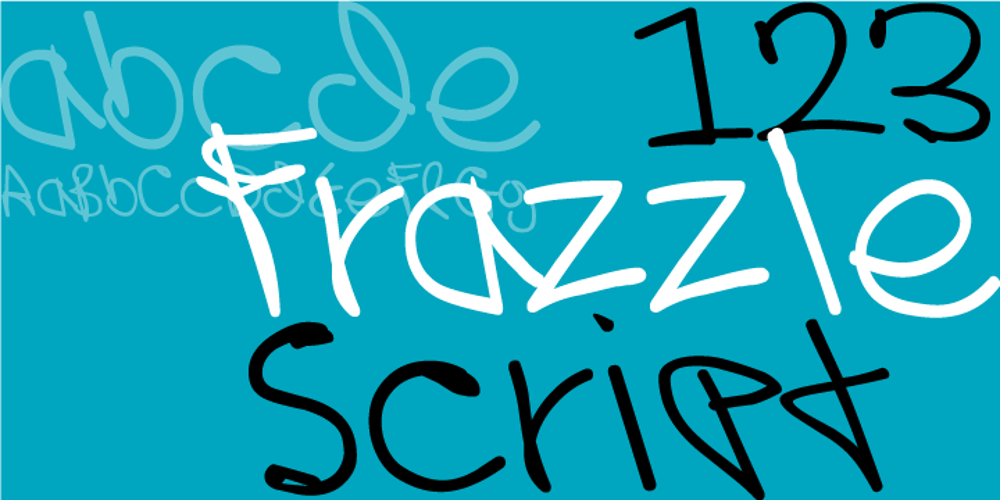
Frazzle
Frazzle font
Frazzle Font Family was designed by Paul O’Connell and published by Paul O’Connell. Frazzle contains 1 styles and family package options. This roughly hand drawn font was created to give that loose scribbled effect look and to imitate a typically hand written style. Designed and produced by Paul O’Connell of POCT, it is a typeface purely for fun to experiment with.